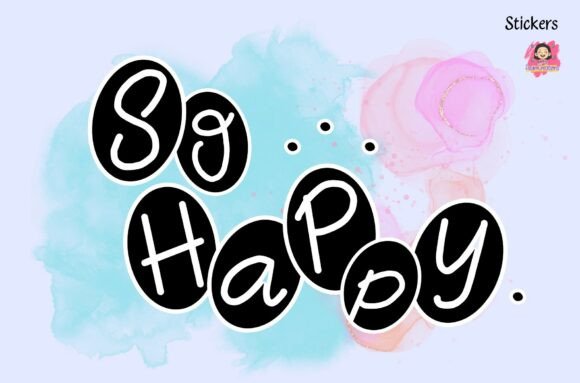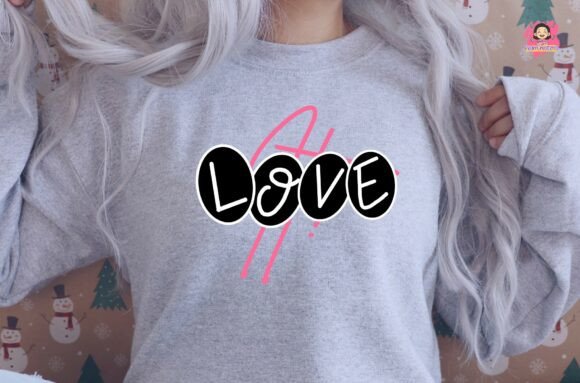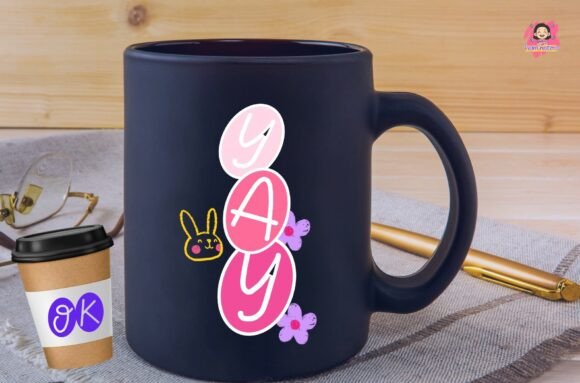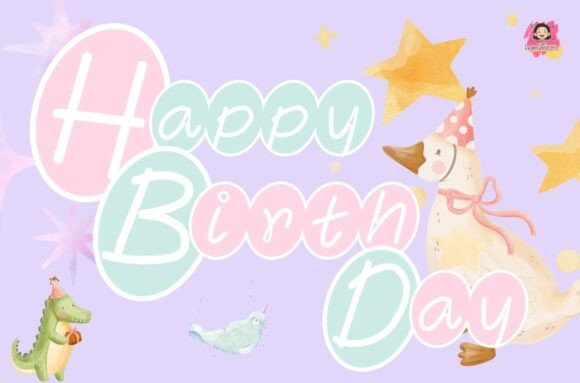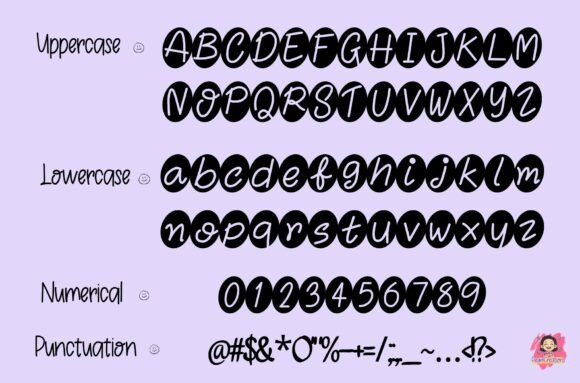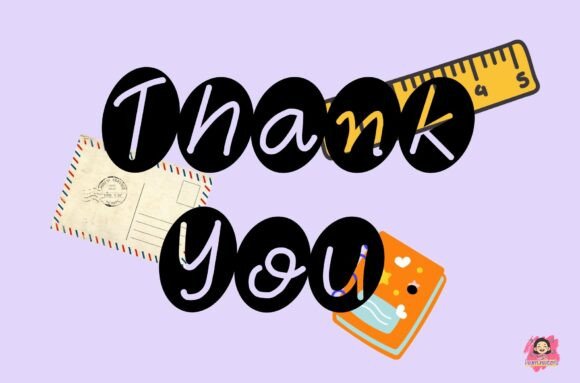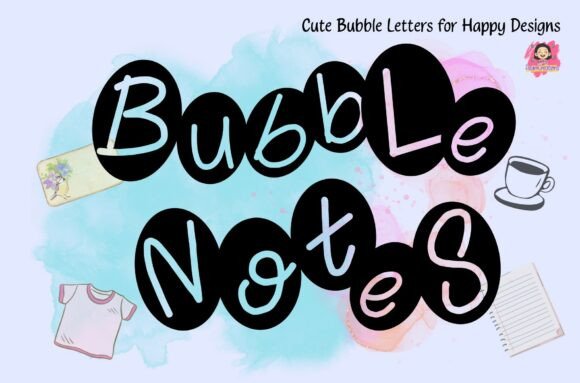
The Joyful World of Bubble Notes Font
Have you ever been in the middle of a design project, and suddenly, it all feels a bit flat? You’re not alone! I recall working on a fun project for a kids’ event, and I was struggling to find the perfect font that could capture the playful spirit I was aiming for. That’s when I stumbled upon Bubble Notes Font, and it completely transformed my design. With its irresistibly fun and bubbly personality, it’s been a game-changer for many creatives, including myself.
A Personal Review of Bubble Notes Font
Let’s dive into what makes Bubble Notes Font so special and what you can expect when using it.
- ✨ Playful and energetic vibe: This font screams fun! It’s perfect for projects that need a cheerful touch.
- ✅ Versatility: Whether you’re working on cute stationery, kids’ clothing prints, or fun product packaging, Bubble Notes fits right in.
- 💡 Easy to read: Despite its playful nature, the font remains clear and readable, even at smaller sizes.
- 🎨 Customizable: With OpenType features and glyphs, you can easily customize your text to fit your project’s needs.
- 🤔 Not suitable for formal projects: This font is playful, so it might not be the best choice for more formal or professional designs.
- ⚠️ Some letter spacing adjustments might be needed: Depending on your project, you might need to tweak the letter spacing to ensure it looks perfect.
The Backstory of Bubble Notes Font
Bubble Notes Font was created with the intention of bringing joy and energy to creative projects. Inspired by the playful doodles found in teenagers’ journals, this font aims to capture that carefree spirit. Its designer sought to create a typeface that was not only fun but also versatile and easy to read.
| What is Bubble Notes Font best used for? | Bubble Notes Font is ideal for cute stationery, school supplies, kids’ clothing prints, fun product packaging, planner stickers, journaling headers, digital scrapbooking, and youth-focused branding. |
| Is Bubble Notes Font suitable for professional projects? | No, Bubble Notes Font is best suited for playful and casual designs. It might not be the best choice for formal or professional projects. |
| Does Bubble Notes Font support OpenType features? | Yes, Bubble Notes Font supports OpenType features, including ligatures and stylistic alternates, which can be accessed through compatible software like Adobe Photoshop/Illustrator or Canva. |
Bubble Notes Font is more than just a typeface; it’s a way to add a pop of fun and creativity to your designs. Whether you’re a designer, crafter, or creative hobbyist, this font is sure to bring smiles to those who see your work. So go ahead, let your creativity bubble up, and make your projects shine with Bubble Notes Font!